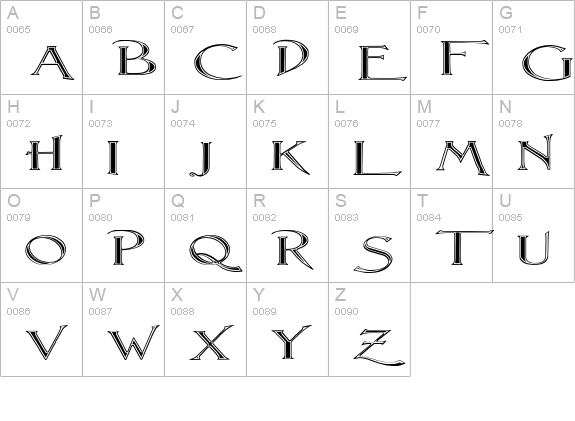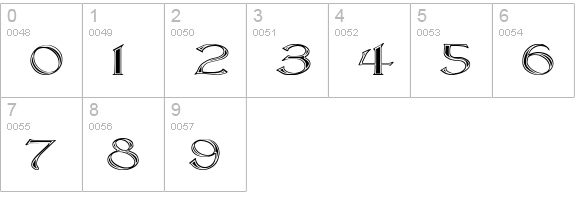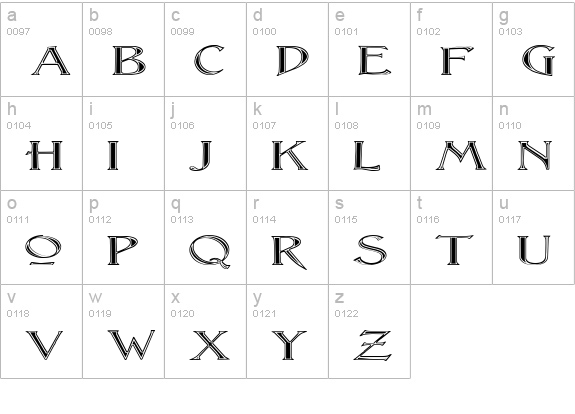
Lightfoot Fluted Extra-expanded Regular Font Details
Lightfoot Fluted Extra-expanded Regular is the standard, neutral, extended-width variant in the Lightfoot typeface family \xE2\x80\x94 well suited to general body text, paragraphs, and standard typographic work.
The Lightfoot Fluted Extra-expanded Regular font is a modern and stylish typeface that exudes elegance and sophistication. Its clean lines and unique fluted design make it perfect for a wide range of design projects, from branding to editorial design. This versatile font is incredibly easy to read and is sure to make a statement in any layout. With its extra-expanded spacing, Lightfoot Fluted Regular font provides a sense of openness and breathability that adds a touch of modernity to any design. Whether you're creating a sleek logo or a sleek brochure, this font will help you achieve a polished and professional look. Best of all, Lightfoot Fluted Extra-expanded Regular font is available for free download at FontsMarket.com. This means you can easily access this high-quality font without breaking the bank. So why wait? Download Lightfoot Fluted Extra-expanded Regular font today and elevate your design projects to the next level.